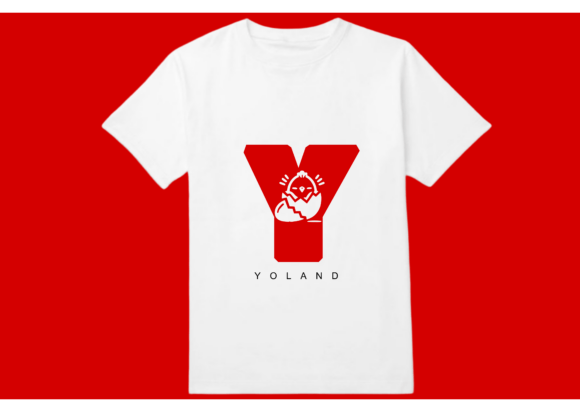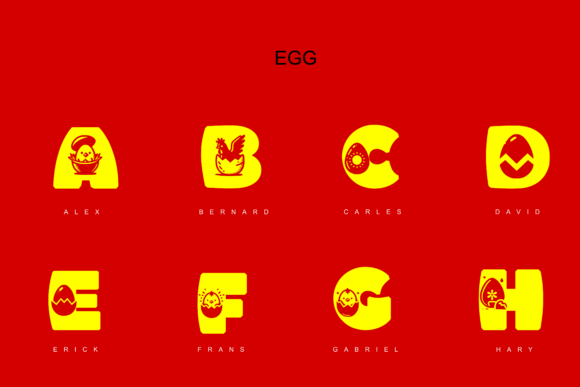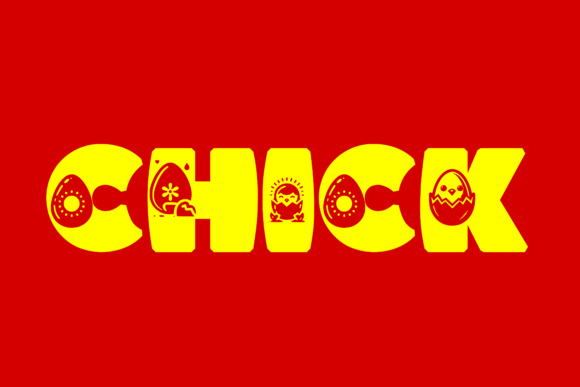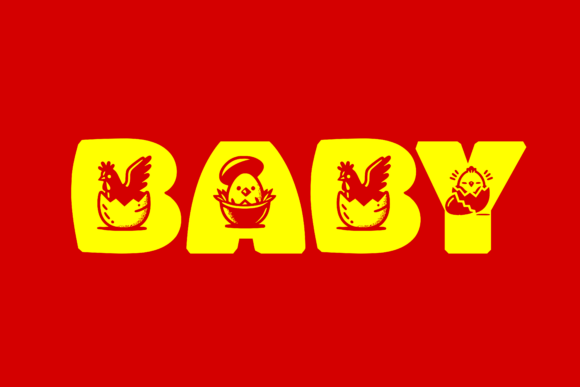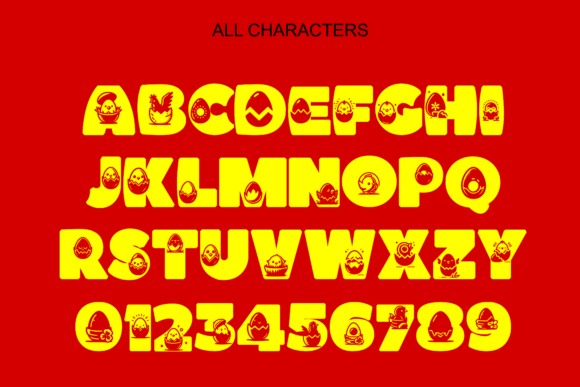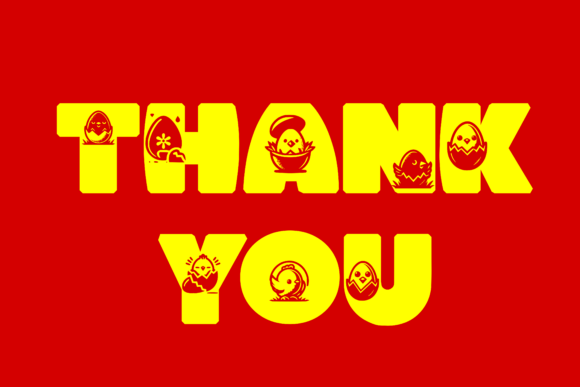
Unleash Your Creativity with Egg Font: A Revolutionary Lettering Instrument
Welcome to the enchanting world of Egg, a groundbreaking font that embodies the essence of artistic expression and limitless creativity. In this realm, the boundaries of imagination are pushed, and the possibilities are endless. At the heart of this innovative font lies the Welcome Fairy, an exquisitely crafted lettering instrument designed to amplify your artistic capabilities, infuse your work with undeniable vitality, and provide a boundless platform for your creativity to flourish.
The Allure of Egg Font
The Egg font is an irresistible force that synergizes with your artistic intuition, sparking a creative fire like no other. Its intrinsic vitality composes a captivating performance, guiding you along a road of untouched artistic exploration. With Egg, you can unlock new dimensions of creativity, allowing your imagination to soar to unprecedented heights. This font is not just a tool; it’s an experience that invites you to embark on a daring and captivating journey of artistic discovery.
Unlock Endless Artistic Possibilities
Egg font is a masterfully designed lettering instrument that offers a wide range of artistic possibilities. Its unique characteristics and features make it an ideal choice for designers, crafters, and artists looking to add a touch of elegance and sophistication to their work. Whether you’re creating a stunning visual masterpiece, crafting a beautiful handmade card, or designing a captivating brand identity, Egg font is the perfect companion to help you bring your vision to life.
The Welcome Fairy: Your Creative Companion
The Welcome Fairy is the heart and soul of the Egg font. This beautifully crafted lettering instrument is designed to be your creative companion, guiding you through the process of artistic expression. With the Welcome Fairy, you can tap into your inner creativity, exploring new ideas and techniques that will help you grow as an artist. This exquisite instrument is the perfect blend of form and function, providing a seamless and enjoyable creative experience.
Key Features of Egg Font
- Unique and Captivating Design: Egg font boasts a distinctive and alluring design that is sure to capture the attention of your audience.
- Endless Artistic Possibilities: With Egg font, you can explore a wide range of artistic possibilities, from elegant and sophisticated designs to bold and playful creations.
- Easy to Use: The Egg font is designed to be user-friendly, making it easy for designers and crafters of all skill levels to incorporate it into their work.
- Versatile: Egg font can be used for a variety of projects, including branding, packaging, signage, and more.
In conclusion, Egg font is a revolutionary lettering instrument that offers a world of creative possibilities. With its unique design, endless artistic possibilities, and user-friendly interface, Egg font is the perfect choice for designers and crafters looking to take their work to the next level. So why wait? Spark your creative voyage with the daring and captivating charm of Egg font and discover a world of limitless artistic expression.